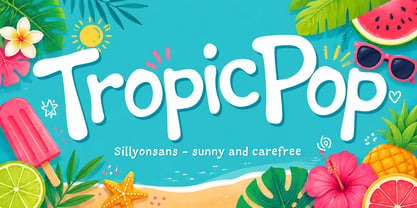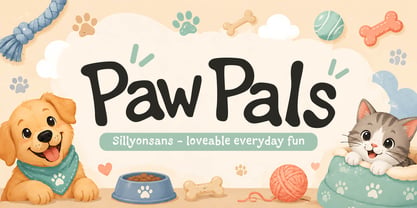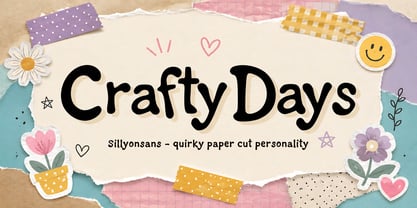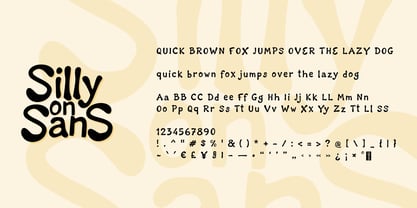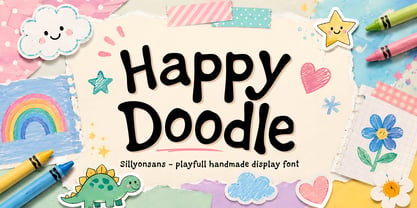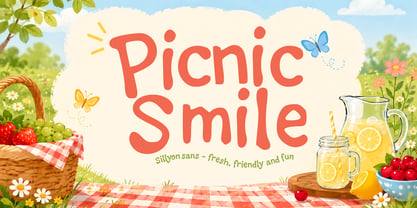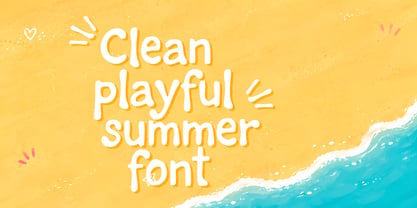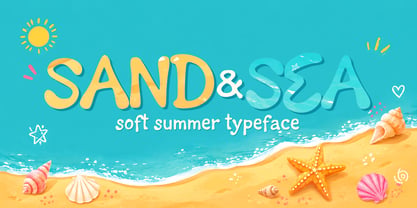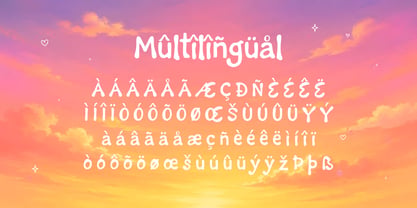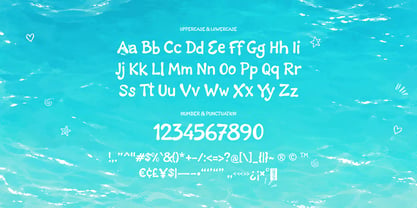
Sillyon Sans is a playful handmade display font with a soft, friendly, and cheerful personality. Designed with rounded strokes, bouncy letterforms, and a natural hand-drawn feel, this typeface brings a warm and fun touch to every creative project.
Its casual sans style makes Sillyon Sans perfect for children’s books, classroom materials, cute branding, toy packaging, birthday invitations, stickers, posters, social media graphics, craft projects, and cheerful product labels. The imperfect shapes give the font an authentic handmade charm, while the bold and readable structure keeps your message clear and eye-catching.
Sillyon Sans is especially suitable for designs that need to feel happy, approachable, and full of personality. Whether you are creating a kids-themed logo, a playful headline, a fun merchandise design, or a colorful greeting card, this font helps your words stand out with a joyful and creative look.
The design concept behind Sillyon Sans is inspired by doodles, school notes, handmade crafts, and playful everyday moments. Each character is shaped to feel spontaneous, cute, and expressive, making the font ideal for projects that want to look less formal and more personal.
Pair Sillyon Sans with clean sans serif fonts for a modern layout, or combine it with script fonts and doodle illustrations for a more whimsical style. Its friendly appearance makes it a great choice for designers, teachers, small business owners, content creators, and crafters who need a fun handwritten font with strong visual appeal.